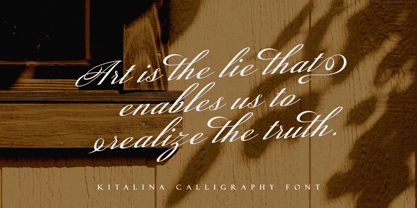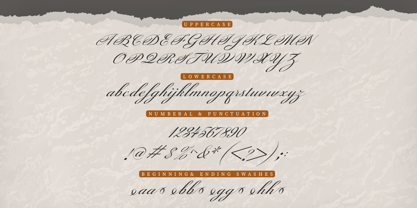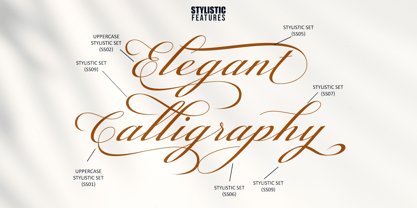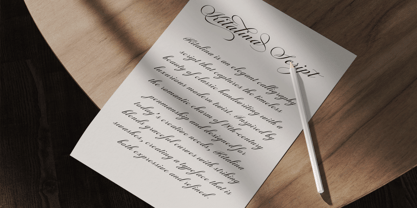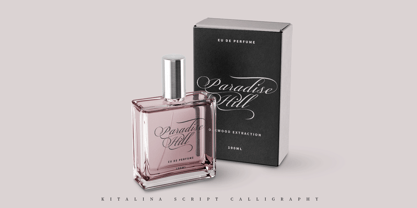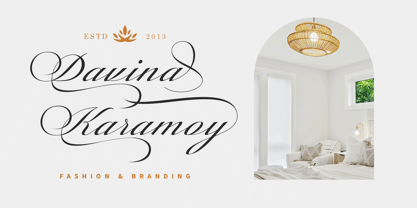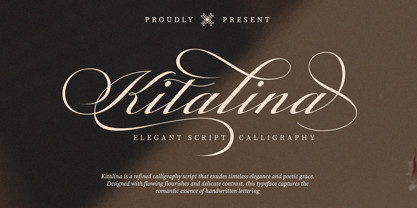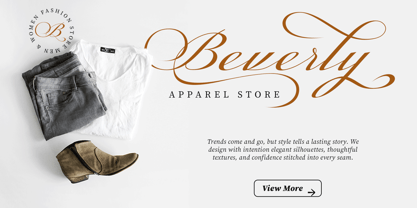
Kitalina
Kitalina is a luxurious calligraphy script font that blends classic elegance with a subtle romantic touch. Designed with smooth curves, thin lines, and beautiful flourishes, Kitalina is suitable for a variety of design needs that require an elegant and sophisticated feel.
This font is perfect for wedding invitations, luxury logos, premium product packaging, magazine headings, inspirational quotes, and other design projects that want to highlight the beauty of classic handwriting.